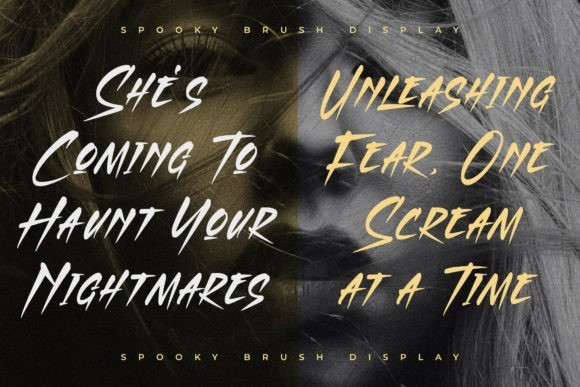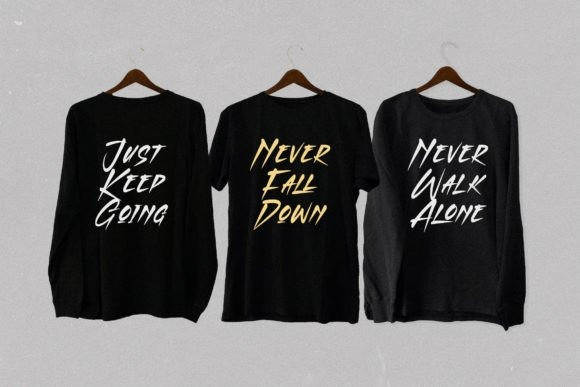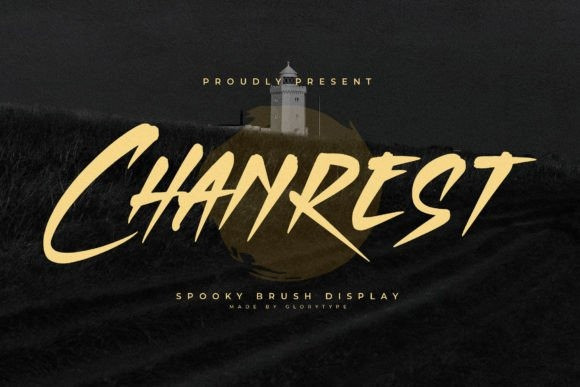
Chanrest Font
Chanrest Font – Spooky Brush Display , from Glorytype Studio, suitable for any projects such as: logos, branding projects, homeware designs, product packaging, mugs, quotes, posters, shopping bags, t-shirts, book covers, name card, invitation cards, greeting cards, label, photography, watermark, special events, and all your other lovely projects that need a beautiful script taste.